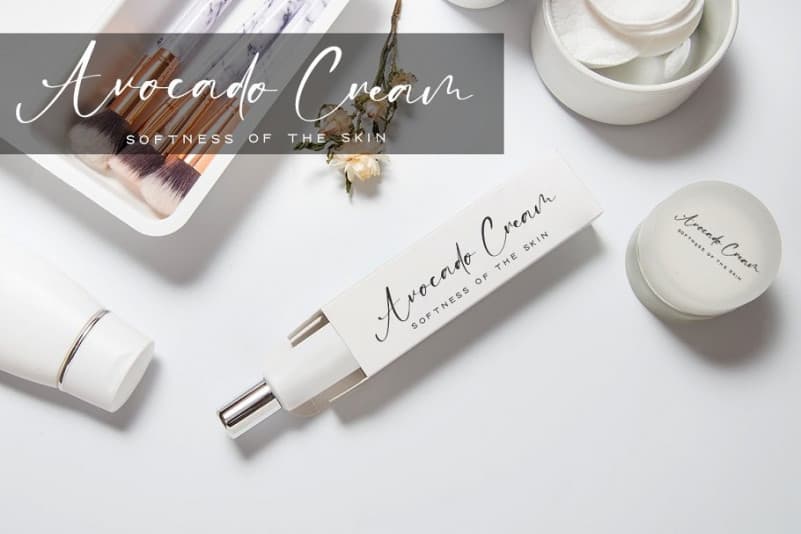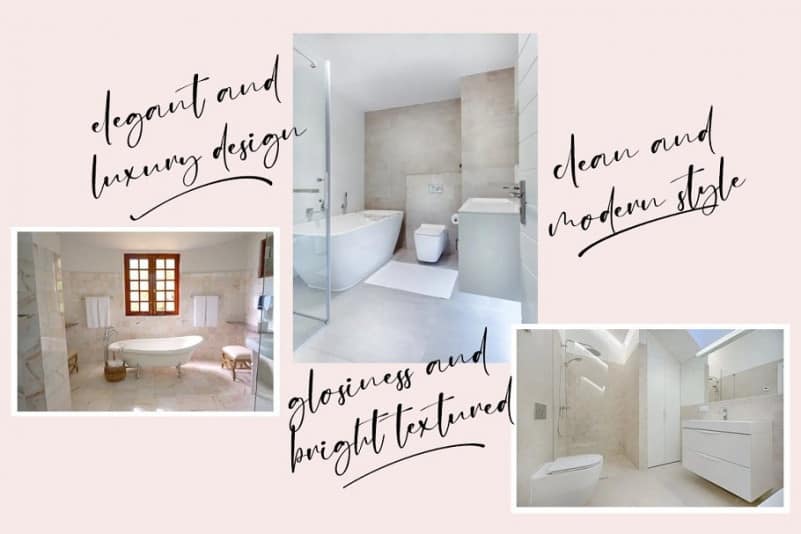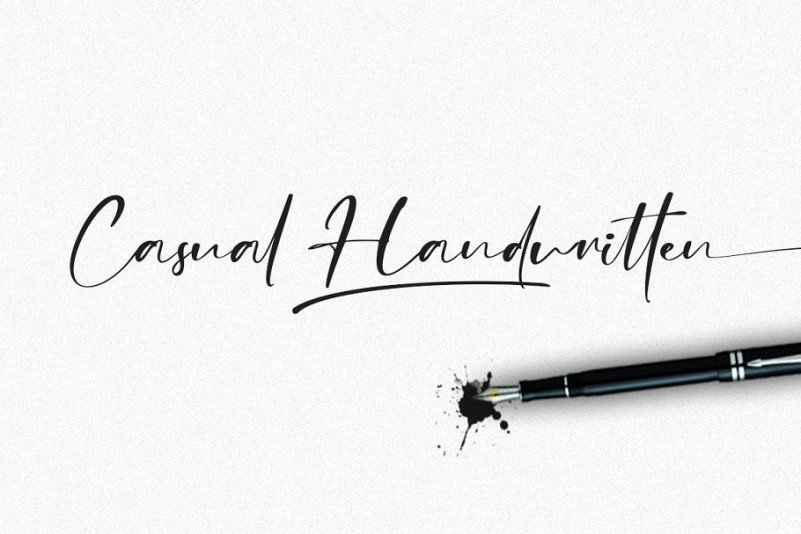
Challenge Script Font with a natural & stylish flow. This collection of scripts is perfect for personal branding. this works well for many applications. Made from font designer named Haksen. This typeface is a stylish modern handwritten script font with casual chic flair.
It is perfect for branding, signature, wedding invitation, promotion, product packaging, and other needs. You will get full set of lowercase and uppercase letters, numerals and punctuation, multilingual symbols, lowercase beginning and ending swashes, ligatures and extra swashes that giving realistic hand-lettered style.